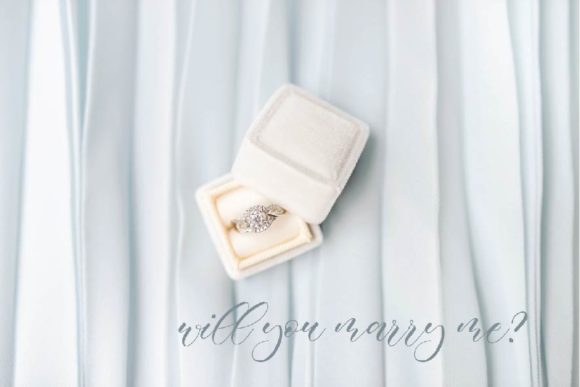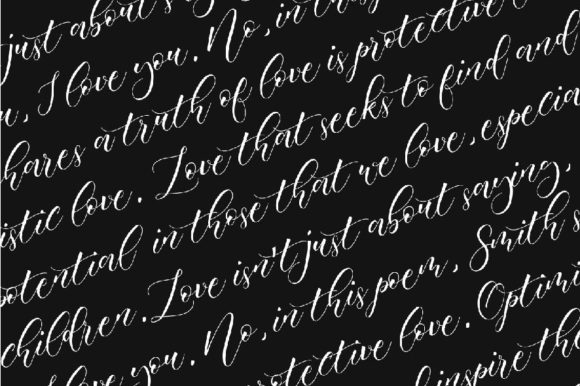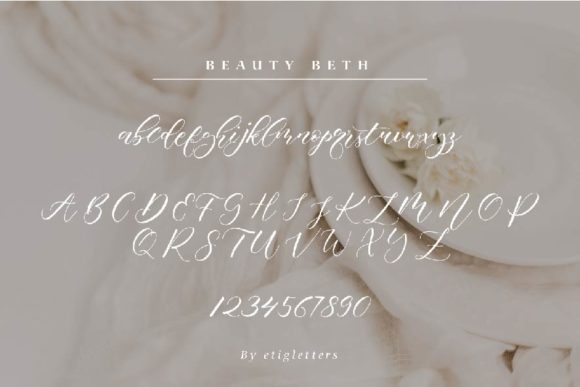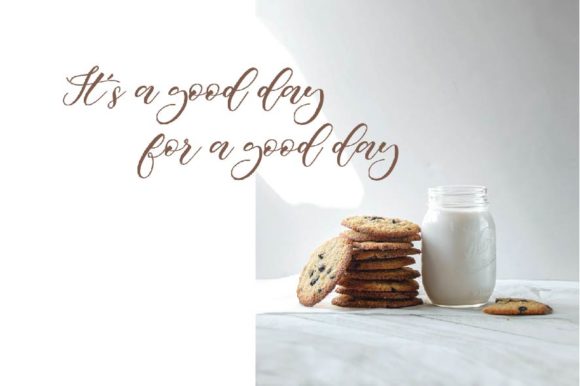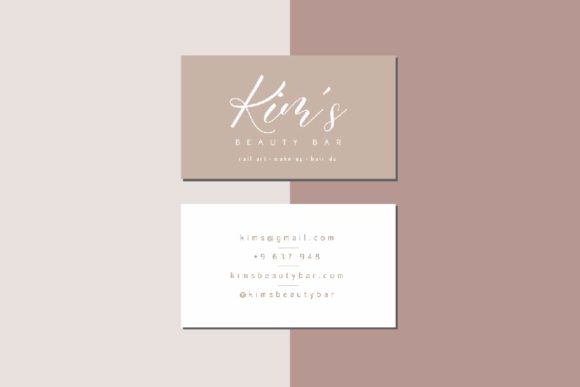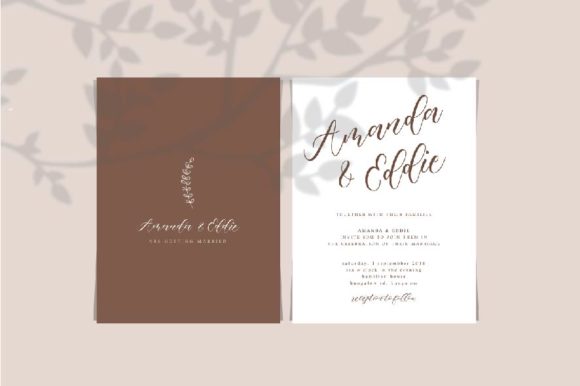
Introducing Beauty Beth Font: Elevate Your Designs with Elegance
Are you a designer or crafter looking for a font that exudes style and sophistication? Look no further than Beauty Beth Font, an incredibly stylish script font with beautiful swashes. In this article, we’ll dive into the world of Beauty Beth, exploring its features, uses, and benefits, and why it’s a must-have for any creative project.
The Beauty of Beauty Beth Font
Beauty Beth Font is a stunning script font that boasts elegant swashes, perfect for adding a touch of luxury to any design. Its beautiful, flowing lines and curves make it ideal for creating eye-catching headlines, titles, and quotes. Whether you’re working on a branding project, crafting a logo, or designing a social media graphic, Beauty Beth Font is sure to make your design stand out.
Key Features of Beauty Beth Font
• Incredibly stylish script font: Beauty Beth Font features a unique and stylish script design that’s perfect for creating elegant and sophisticated text.
• Beautiful swashes: The font comes with beautiful swashes that add a touch of luxury and creativity to your designs.
• High-quality design: Beauty Beth Font is designed with high-quality craftsmanship, ensuring that it looks great in any size or format.
Uses of Beauty Beth Font
Beauty Beth Font is a versatile font that can be used in a variety of creative projects, including:
• Branding and logos: Use Beauty Beth Font to create elegant and sophisticated logos that make your brand stand out.
• Social media graphics: Add a touch of luxury to your social media graphics with Beauty Beth Font’s beautiful swashes and elegant design.
• Invitations and stationery: Create stunning invitations, cards, and stationery with Beauty Beth Font’s elegant script design.
• Packaging and labels: Use Beauty Beth Font to add a touch of sophistication to your packaging and labels.
Benefits of Using Beauty Beth Font
So why choose Beauty Beth Font for your next design project? Here are just a few benefits:
• Unique and stylish design: Beauty Beth Font offers a unique and stylish design that’s sure to make your design stand out.
• Elegant and sophisticated: The font’s elegant and sophisticated design makes it perfect for high-end branding and design projects.
• High-quality craftsmanship: The font is designed with high-quality craftsmanship, ensuring that it looks great in any size or format.
Tips for Using Beauty Beth Font
Here are a few tips for getting the most out of Beauty Beth Font:
• Use it sparingly: Beauty Beth Font is a statement font, so use it sparingly to add emphasis and elegance to your design.
• Experiment with swashes: The font’s beautiful swashes are a key feature, so experiment with different swash combinations to add creativity to your design.
• Pair it with other fonts: Beauty Beth Font pairs well with other fonts, so experiment with different font combinations to create a unique and stylish design.
In conclusion, Beauty Beth Font is an incredibly stylish script font with beautiful swashes that’s perfect for designers and crafters looking to add a touch of elegance and sophistication to their designs. With its unique and stylish design, elegant and sophisticated aesthetic, and easy-to-use features, Beauty Beth Font is a must-have for any creative project. So why wait? Download Beauty Beth Font today and elevate your designs to the next level!